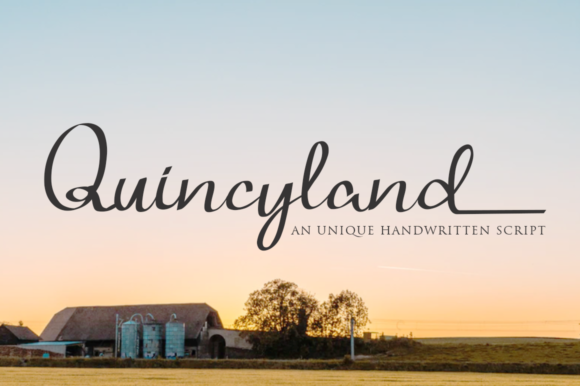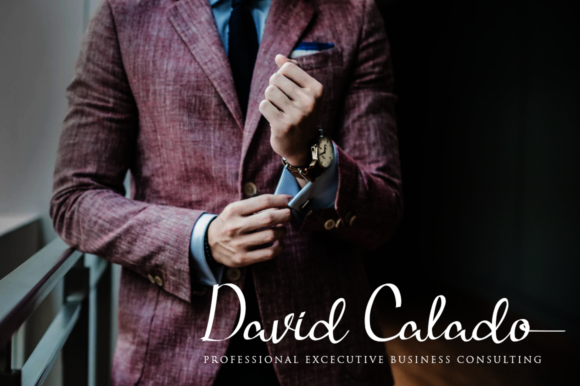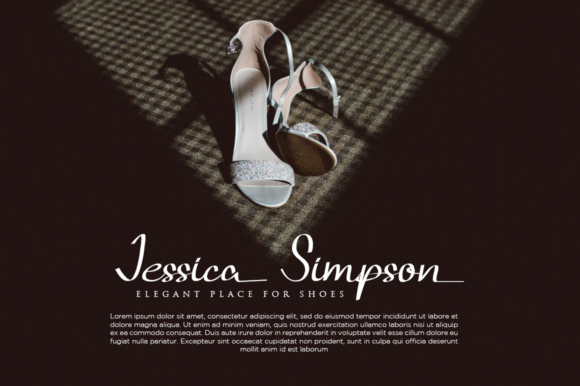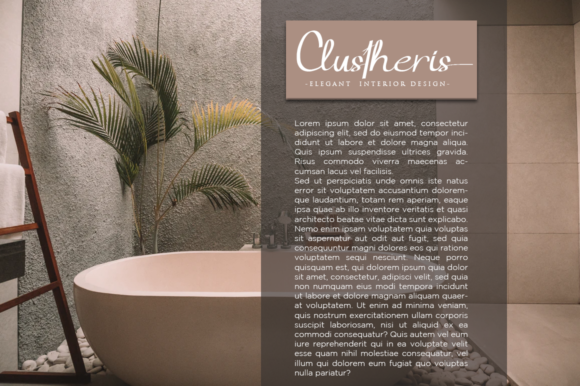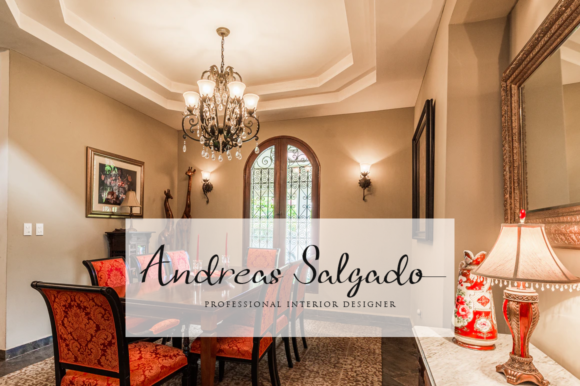
About Quincyland Font
Quincyland is a sophisticated script font that embodies elegance and contemporary charm. With its impeccable form and a touch of timeless classic calligraphy, this font is designed to elevate the beauty of your projects.
The elegant nature of Quincyland is evident in its carefully crafted letterforms. Inspired by classic calligraphy, this font exudes a refined and graceful aesthetic. The curves and strokes are meticulously designed to create an impeccable form that captures attention and conveys a sense of sophistication.
Quincyland strikes the perfect balance between being not too thin and not too thick. This balanced approach ensures excellent legibility while adding a touch of variation and visual interest. The result is a font that enhances the overall beauty of your projects, adding a touch of elegance and refinement.
The contemporary atmosphere of Quincyland gives it a modern and fresh appeal. It combines the timeless charm of classic calligraphy with a contemporary twist, making it suitable for a wide range of design styles and themes. Whether you’re working on wedding invitations, branding materials, or any other project, Quincyland adds a sense of modernity that resonates with your audience.
Quincyland is designed to enhance the beauty of your projects, regardless of the application. It is versatile and well-suited for various design purposes, from sophisticated logos and branding to elegant wedding stationery. The font’s timeless quality ensures that your designs will stand the test of time and maintain their elegance and allure.
In summary, Quincyland is an elegant script font that exudes sophistication and contemporary charm. Its impeccable form, inspired by classic calligraphy, enhances the beauty of your projects. Embrace the elegance of Quincyland and witness how it elevates your designs, leaving a lasting impression with its balanced and varied aesthetic.